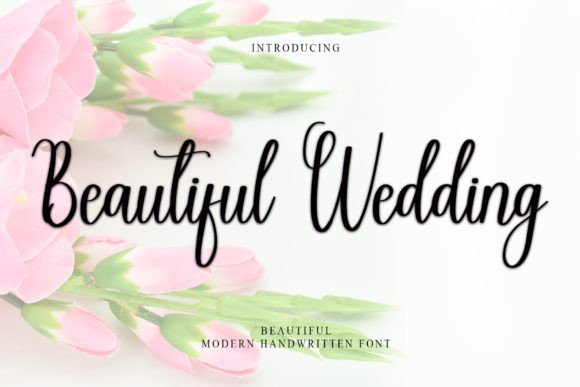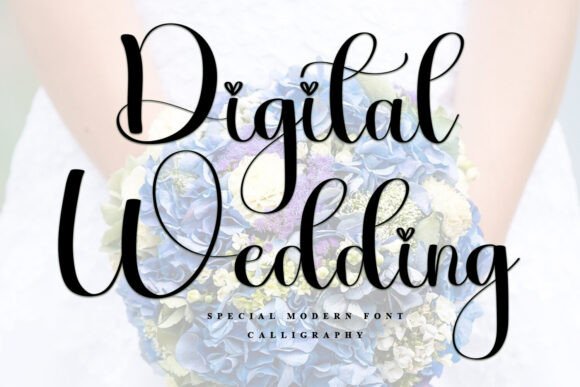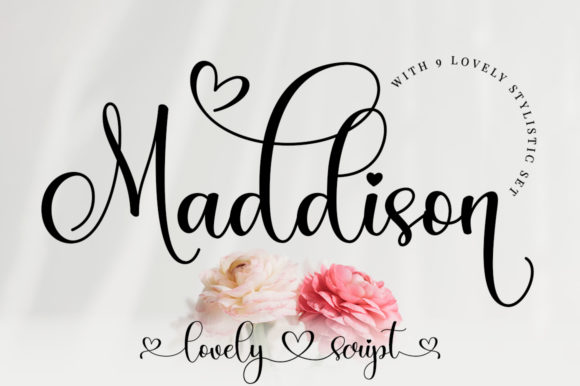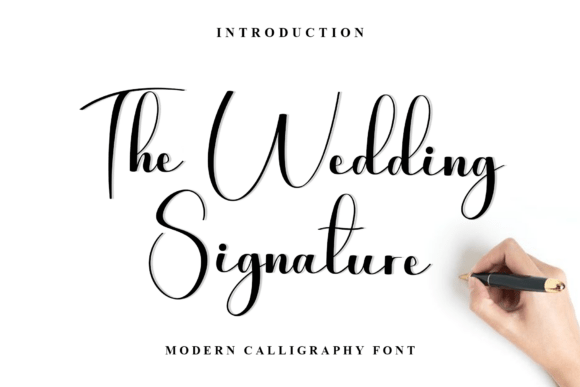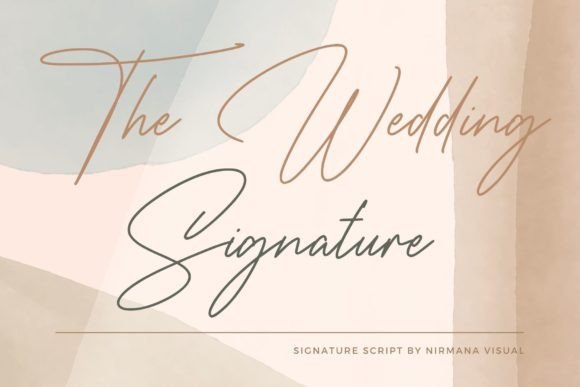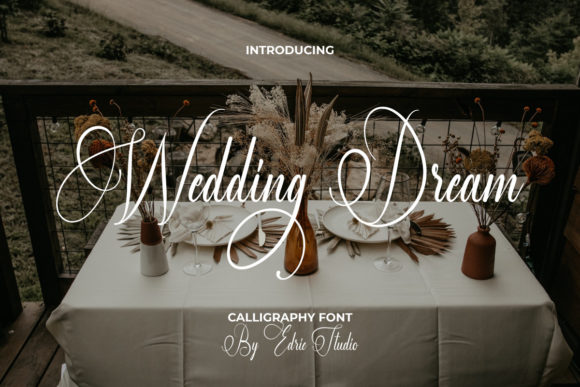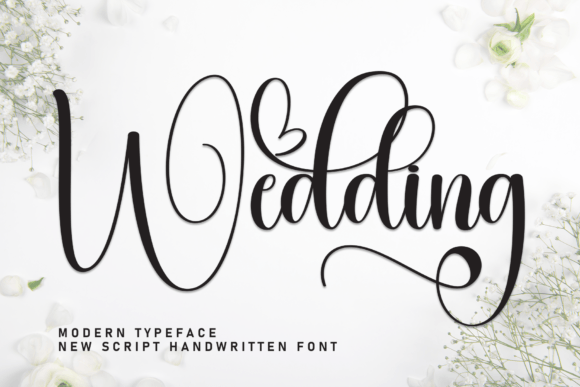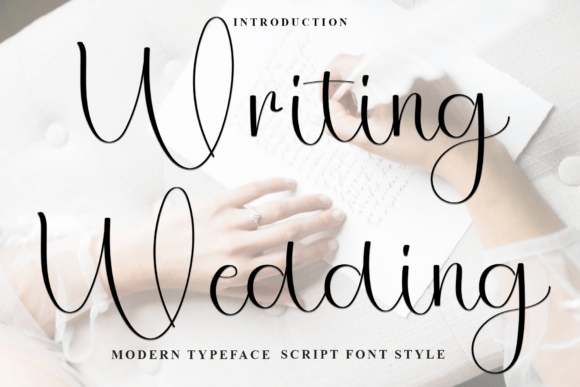
Wedding fonts
13 Wedding fonts every designer needs for romantic projects
Typography is the secret ingredient to unforgettable wedding stationery. It conveys romance, elegance, and personality before a single word is read. In my years as a designer, I have curated a collection of go-to typefaces that never fail to elevate a project.
Whether you are crafting boho-chic signage or formal invitations, the right typeface makes all the difference. I have rounded up my favorite Wedding Fonts that blend romance with readability, and I am also sharing a few unexpected Creative Fonts that will make your designs stand out from the stack.
Here is your ultimate guide to typography for the aisle.
Maddison Font
Let’s start with a true showstopper. If you want a font that captures the butterflies of being in love, look at Maddison. It is a romantic calligraphy typeface that brings joy to any design.
What I love? The characters dance along the baseline. Nothing is rigid. This gives your work that coveted handmade feel. It strikes the perfect balance: elegant enough for a black-tie wedding, yet relaxed for a rustic barn.
Technically, it is just as beautiful. You want your Creative Fonts to be functional. Maddison is PUA encoded, so those gorgeous swashes and flourishes? You can access them with ease. No tech wizardry required. You just type, and the magic happens.
Whether you design invitations or logos, Maddison delivers charm. It is one of my favorite Wedding Fonts.
The Wedding Signature Font
Next on my list is a font that feels like the final flourish of a pen on a marriage certificate. The Wedding Signature is a dazzling script font that brings instant elegance to any project.
What impresses me as a designer is the level of detail here. This font is neatly crafted with high precision. Every curve and connector feels intentional, not accidental. It has that authentic ink-on-paper quality that is so hard to find in digital type.
Whatever you are creating – save-the-dates, thank you cards, or even wedding websites — this font will be a wonderful asset to your library. It has the potential to enhance any creation, turning simple text into a statement.
If you want your stationery to look personally signed by the couple, this is the one.
Wedding Font
Sometimes you need a font that feels personal without trying too hard. That is exactly what Wedding delivers. It is a stylish and incredibly elegant handwritten font that mimics natural penmanship.
What makes this one special? Its versatility. It looks stunning on wedding invitations and thank you cards, obviously. But I also love it for quotes, greeting cards, and even business cards. If a design needs that authentic handwritten touch, this font delivers every time.
The texture is what draws me in. It feels human, not digital. And on the technical side? It is PUA encoded, so you can access all those beautiful glyphs and alternates with ease. No complicated software needed. You just open your design program and let your creativity run.
For designers who want elegance without stiffness, Wedding is a must-have.
Writing Wedding Font
Let me introduce you to a font that stops the scroll. Writing Wedding is a beautiful and eye-catching typeface designed with a soft, unique touch. The moment I saw its distinctive strokes, I knew it had something special.
What makes it stand out? Those strokes give it real character. It feels meaningful, not generic. This makes it incredibly versatile for future use. Whether you are working on design projects, crafts, or other creative works, this font adapts effortlessly.
I also appreciate how practical it is. It is compatible with various applications, including Windows and open-source platforms. This natural font style will enhance your designs, making them appealing to audiences across different creative fields.
If you want your work to feel soft, unique, and undeniably memorable, add this one to your library.
Wedding Dream Font
There is a certain magic in finding a font that feels both charming and elegant at the same time. Wedding Dream captures that balance perfectly. I keep coming back to this one because it works everywhere. It looks stunning on wedding invitations and thank you cards, obviously. But try it on quotes, greeting cards, or even business cards. If your design needs a handwritten touch, this font delivers without feeling forced.
The letterforms have a natural flow that feels authentic, not stiff. And on the technical side? It is PUA encoded, so you can access all those gorgeous glyphs and swashes with ease. No frustration, no complicated maps. Just open your software and let the creativity flow.
For designs that need to feel dreamy, this is the answer.
Rustic Wedding Font
Sometimes a font comes along that feels like it was made for everything. Rustic Wedding is exactly that — a Modern Calligraphy Font with timeless appeal. I call it my secret weapon. Whether you are using it for crafts, digital design, presentations, or making greeting cards, this font adapts seamlessly. It has that rare ability to elevate any project without overpowering it.
I hope this guide helps you discover new favorites for your creative library. Experiment, mix, and most importantly, have fun with it. After all, designing for love stories is the best job in the world.